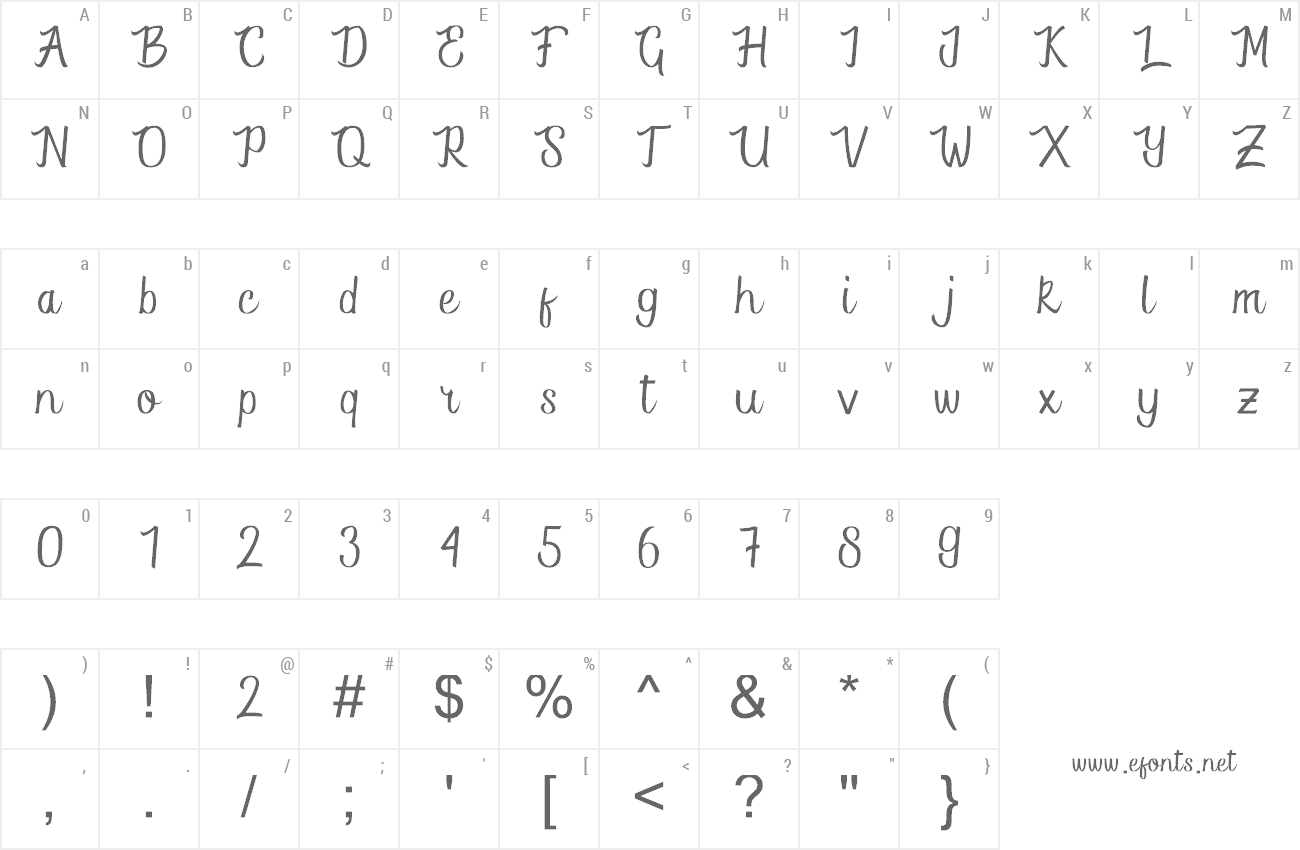
| Font name: | Jallarre Script |
| Author: | sixtwenty studio |
FULL VERSION HERE: https://www.creativefabrica.com/product/jallarre/ Jallarre - brush script font created with medium thickness pen brush that will make your design look cool. Jallarre - will be perfect for magazines, business cards, invitations, packaging, tshirt, and all designs that require signature, modern and luxurious elements. What includes: - Jallarre OTF - Ligature - Works on PC & Mac - Simple installation - Accessible in Adobe Illustrator, Adobe Photoshop, Adobe InDesign, also works in Microsoft Word. - Can be accessed completely without additional design software. Thank you for your download! Hope you enjoy our font! ~ Sixtwenty Studio ~ |